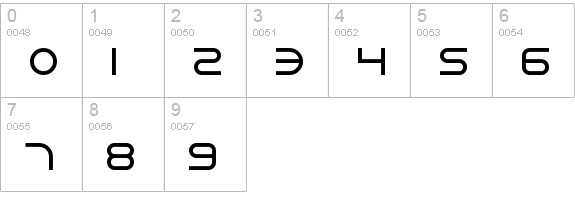
Chandstate Font Details
Chandstate font is a beautifully crafted typeface that exudes elegance and sophistication. Its sleek, modern design is perfect for a wide range of design projects, from branding to editorial. The font features clean lines and a unique style that sets it apart from other typefaces. What makes Chandstate font even more special is that it is available for free download at FontsMarket.com. This means that you can easily access this stunning font without having to worry about any costs. Whether you are a graphic designer, a business owner, or a student working on a project, Chandstate font is a versatile and stylish option that will elevate your work to the next level. With its free availability and timeless appeal, Chandstate font is a must-have for anyone looking to add a touch of sophistication to their design projects. Download it today and see the difference it can make in your work!